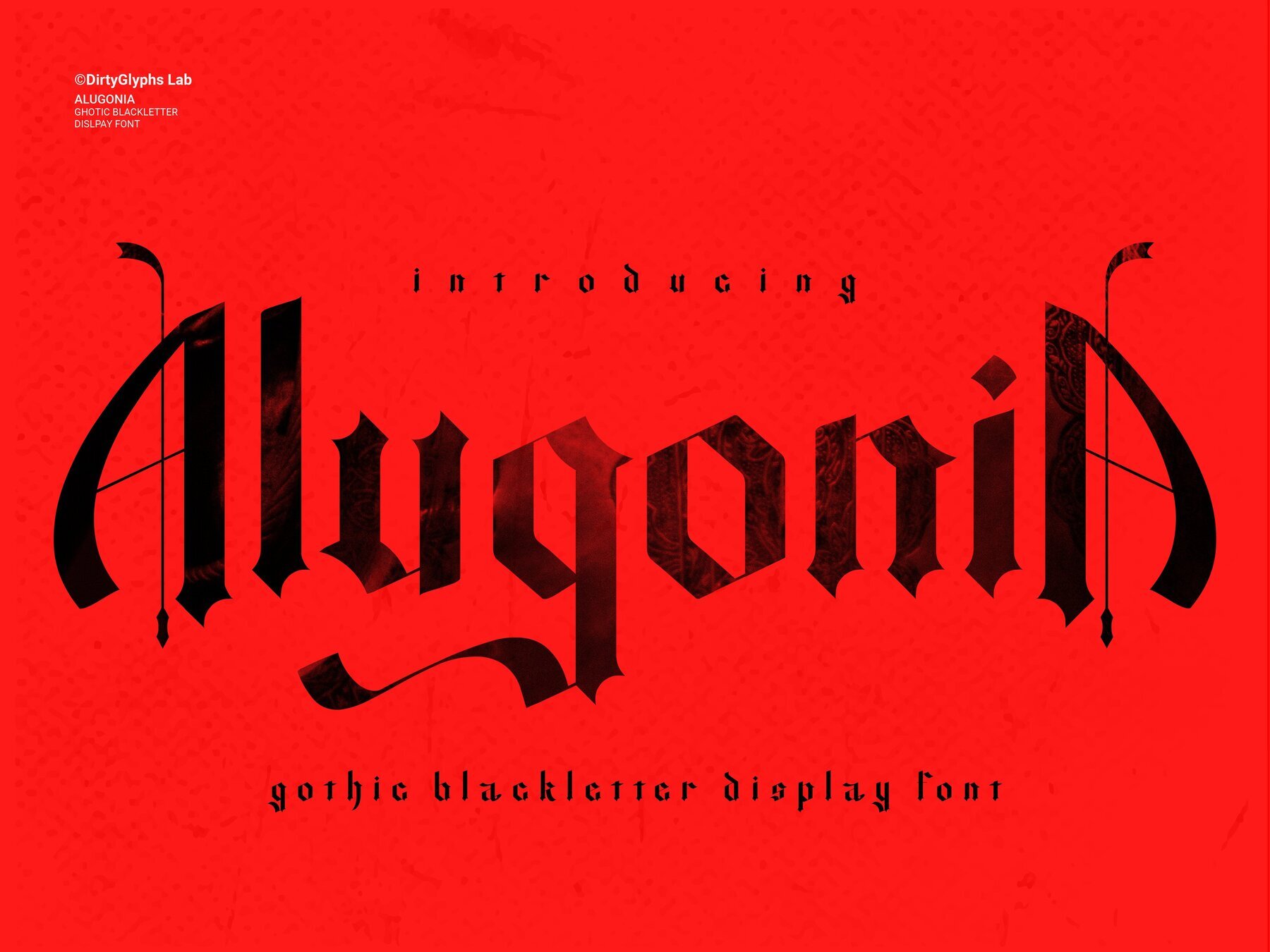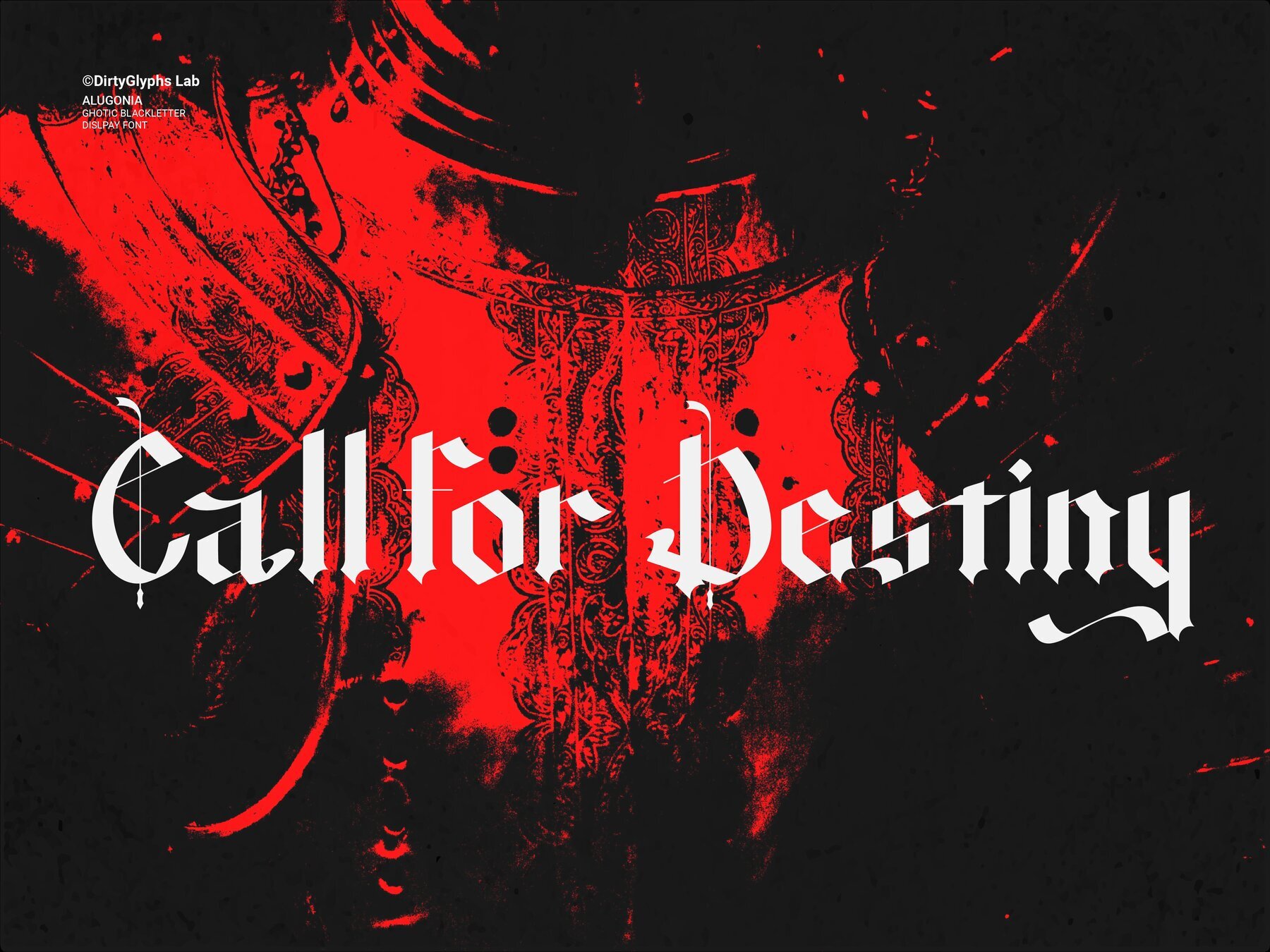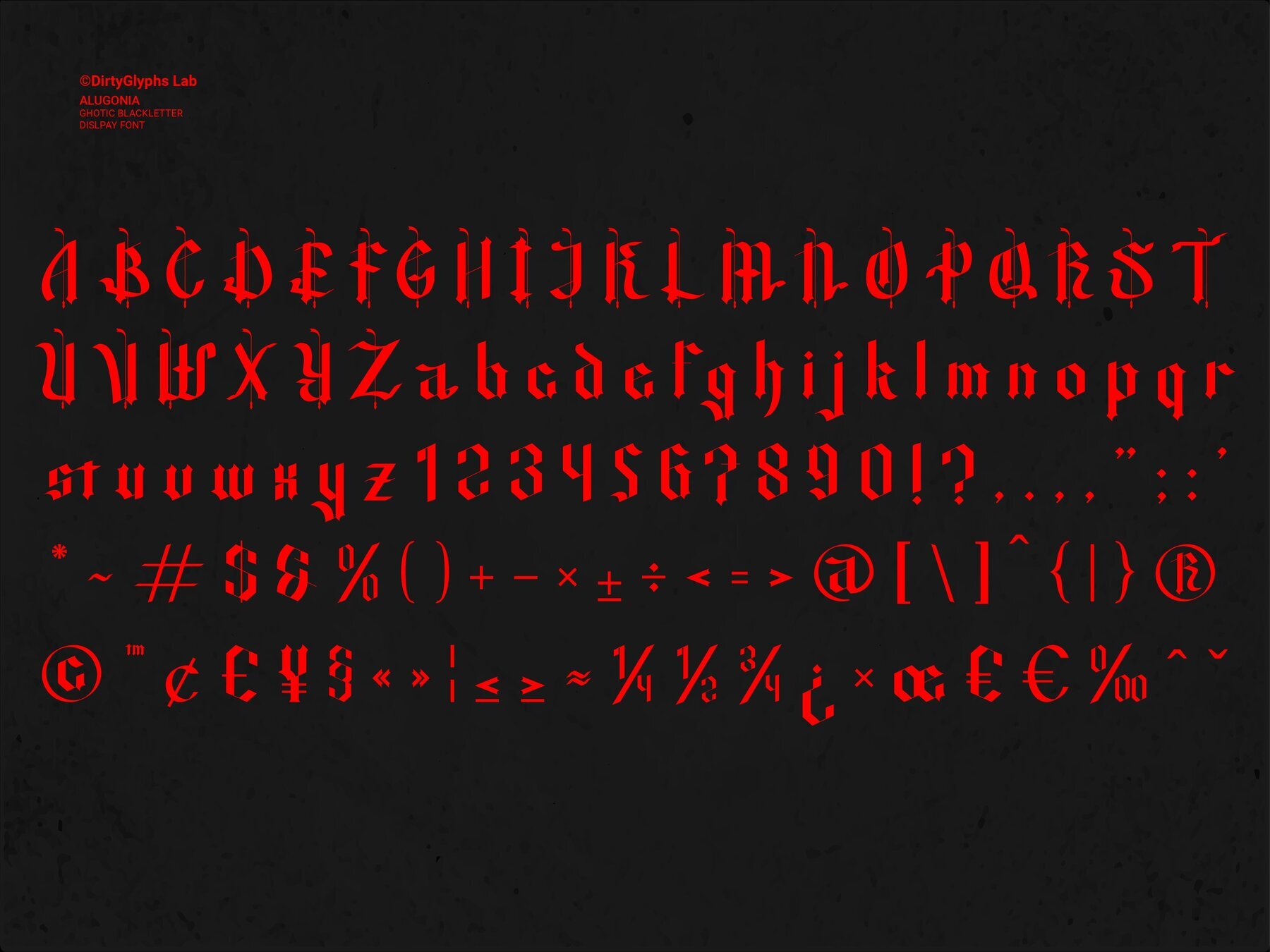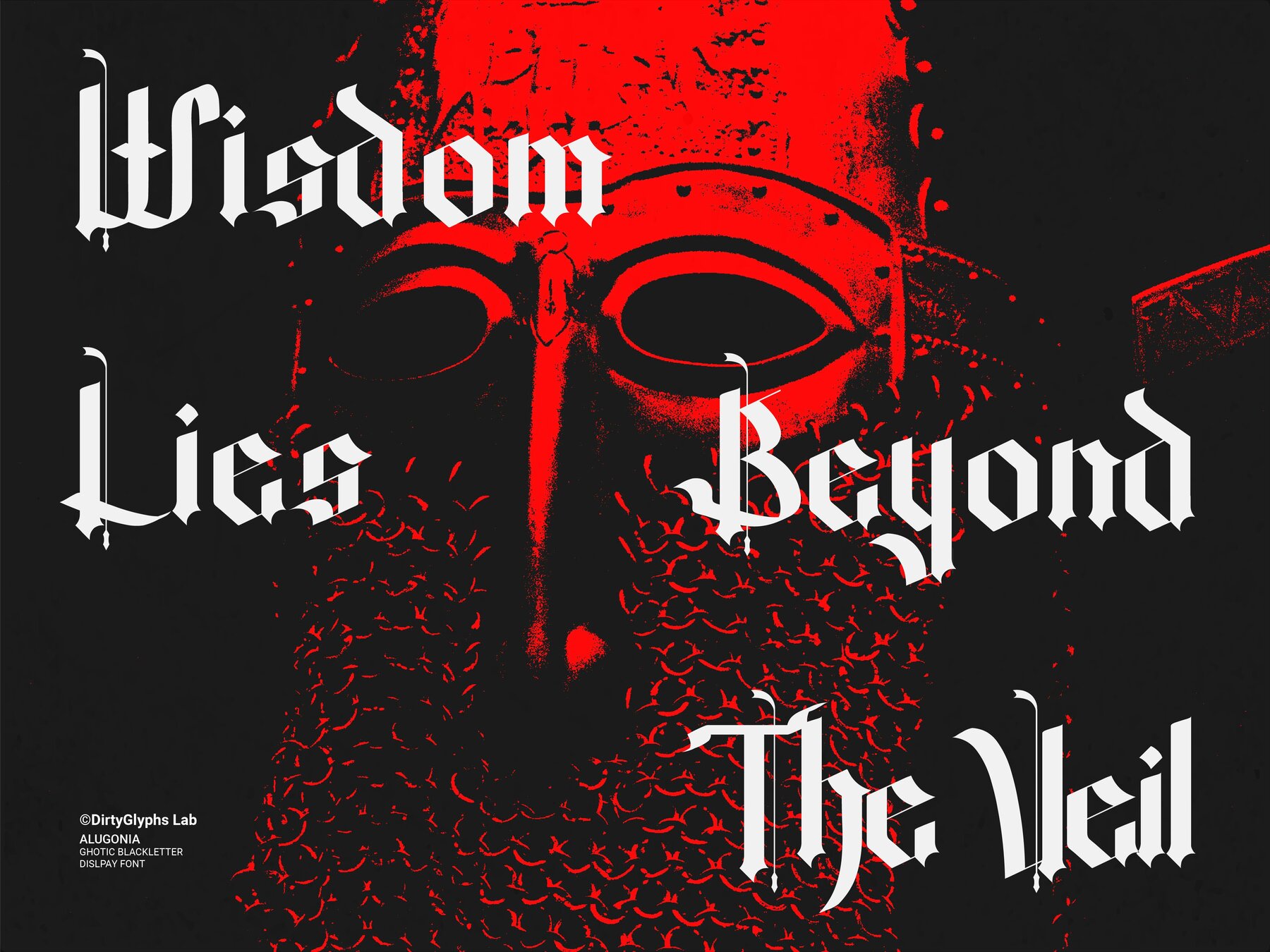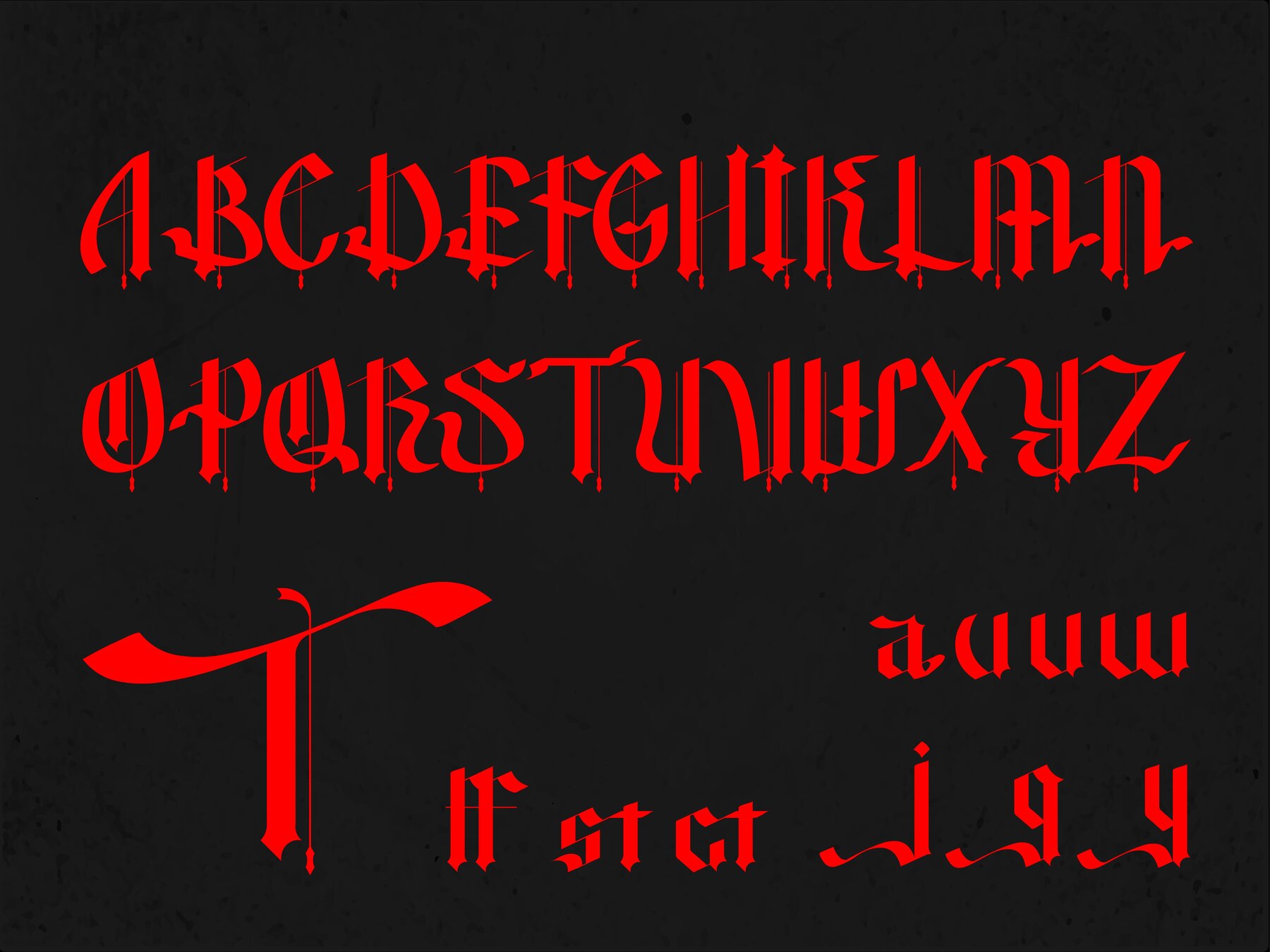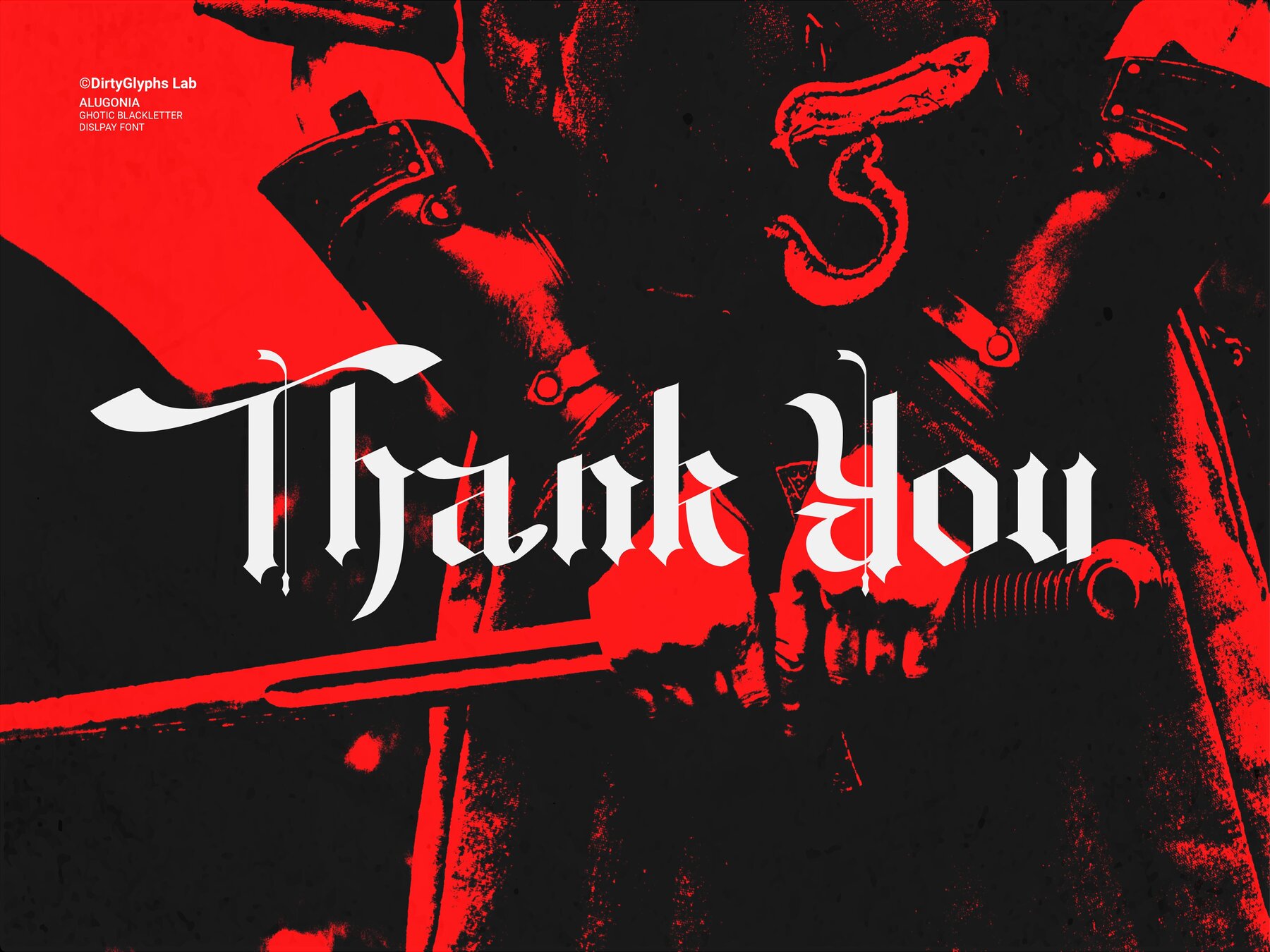
Alugonia Font
Alugonia - Gothic Blackletter Display Font
Immerse yourself in medieval elegance with Alugonia, a Gothic Blackletter font designed to evoke the grandeur and depth of ancient times. Inspired by the intricate calligraphy of old manuscripts and the majestic architecture of Gothic cathedrals, Alugonia brings a touch of timeless sophistication to your designs.
- Bold, Distinct Characters: Alugonia features thick, sharp strokes and dramatic lines for a powerful presence.
- Elegantly Crafted Details: Intricate, carefully designed glyphs enhance high-impact, eye-catching designs.
- Full Character Set: Includes uppercase and lowercase letters, numerals, punctuation, and unique ligatures.
- Versatile Applications: Ideal for album covers, book titles, posters, logos, branding, apparel design, and more.
Alugonia is more than a font; it invites you into a world of legends and myths. With its Gothic Blackletter style merging classical charm with a dark, fantasy-inspired edge, it's perfect for designs rich in mystery, power, and fantasy. Whether crafting logos that make an impression, captivating posters, or merchandise that resonates with fans of the medieval and fantasy genres, Alugonia promises to transform your text into a statement piece.